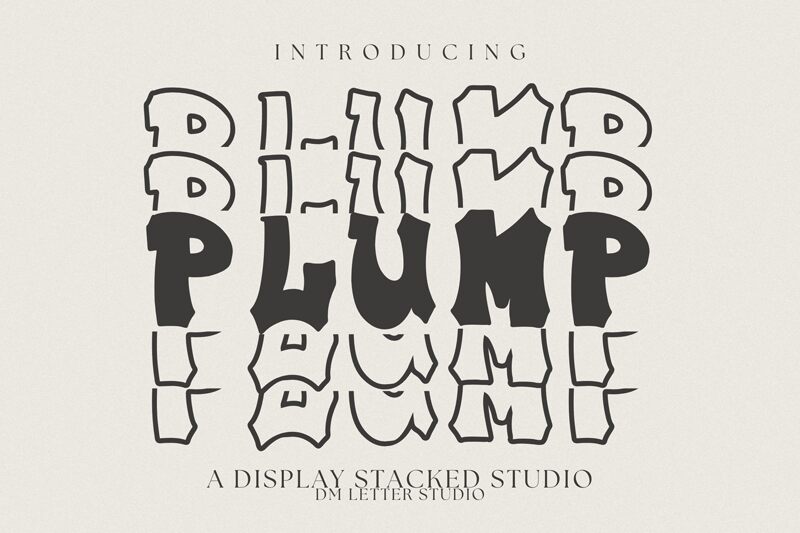
Plump Stacked font family by DM Letter Studio - Dimas Prasetyo features an energetic approach with a whimsical flair that will catch the eye of its viewers. This free font family comes in four different styles that provide versatility and flexibility for your projects. Its youthful vibes that feel playful but still powerful are palpable in every letter with thick and charismatic weighting. The typography finds a modern retro flare that feels contemporary yet classic.
Apply the font with ease in branding projects that require that visual impact. Its charming style would be inviting in advertising with a loud and effective personality that would appeal to every age group. Businesses that offer fun activities, such as arcades, play centers for kids, or escape rooms can use it to find a unique identity. Its lovable aura could elevate prices and announcements of products, promotional content on social media pages, or gaming posters.